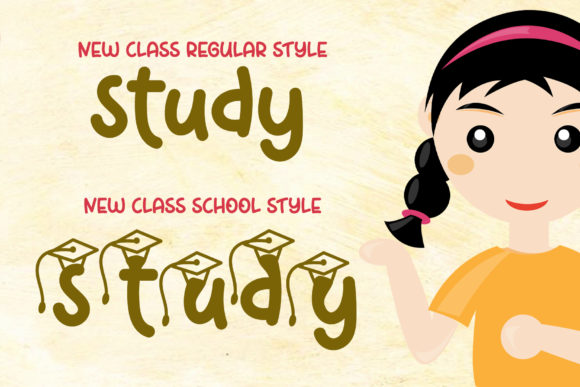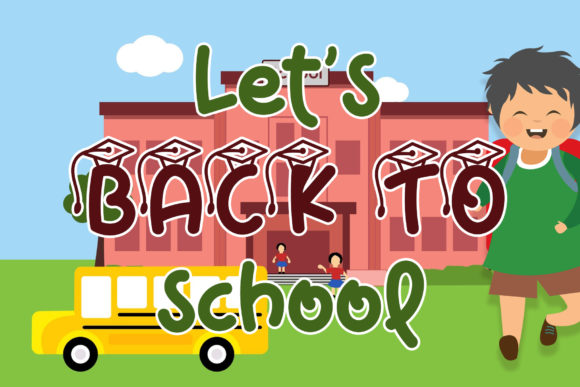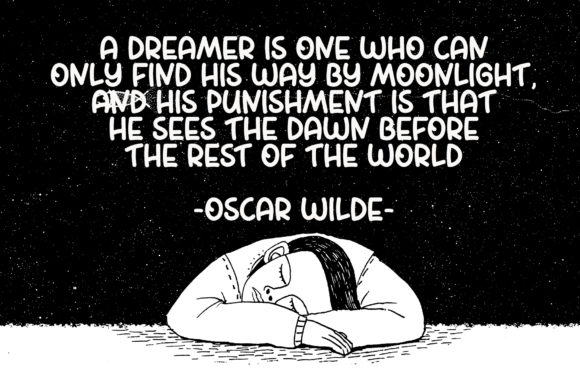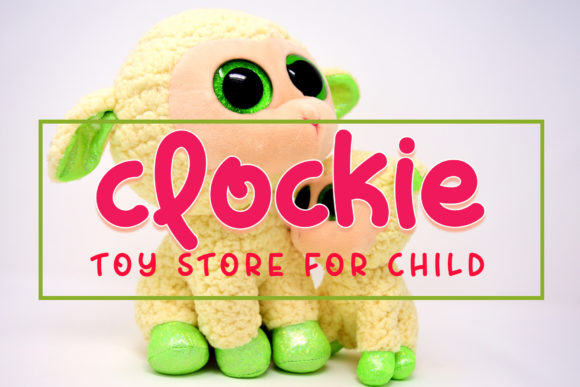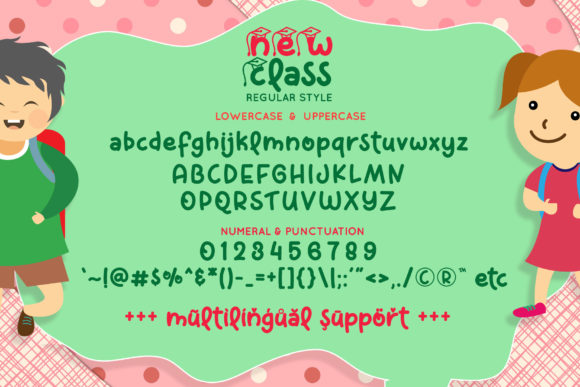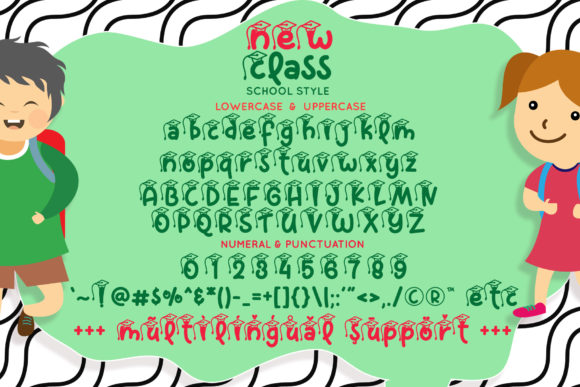
Introduction to New Class Font
Remember the excitement of creating a new project in school, the blank page waiting to be filled with imagination and creativity? For many of us, those moments sparked a lifelong passion for design and self-expression. Now, we’re thrilled to share a design resource that will transport you back to those carefree days – the New Class Font.
This fun and friendly handwritten font is a treasure trove of school-themed characters, exuding a sense of sweetness and playfulness that’s sure to delight both kids and adults alike. Whether you’re working on a creative project or simply looking for a unique touch to elevate your designs, the New Class Font is an invaluable asset in your design arsenal.
As a high-quality design resource, the New Class Font offers a transparent background, making it perfect for a free download and seamless integration into your projects. With its versatility and charm, this font is an absolute must-have for any designer seeking to add a personal touch to their work.
Key Features of New Class Font
- High-quality, professional font design suitable for creative projects and design resources.
- Features a transparent background, allowing for seamless integration with any design or image.
- Designed with a clean and modern aesthetic, perfect for use in logos, typography, and other design elements.
Honest Review: New Class Font
As a designer, I’ve come across a plethora of fonts online, but New Class Font has caught my attention lately. The font boasts a clean and modern aesthetic, perfect for any creative project that demands high-quality typography.
- High-quality glyphs with crisp edges, ideal for print and digital designs ✨
- Transparent background, allowing for seamless integration with any design element ✨
- Extensive character set, covering a wide range of languages and scripts ✨
- Limited font weights and styles, which may not be suitable for all design projects ⚠️
- Not suitable for very large font sizes, as the font may lose its clarity ⚠️
Overall, I’m impressed with the design and functionality of New Class Font. While it may not be perfect, it’s a great addition to any designer’s toolkit. If you’re looking for a clean and modern font for your next creative project, I’d definitely recommend giving New Class Font a try.
Tips for Getting the Most Out of New Class Font
Use the New Class Font on a transparent background to create a clean and modern design. Experiment with different font sizes and colors to add visual interest to your project.
The New Class Font is perfect for creative projects that require a high-quality, stylish font. Use it for logos, brochures, business cards, or any other design resource where a unique font is needed.